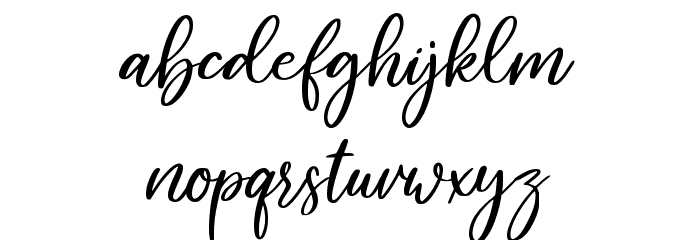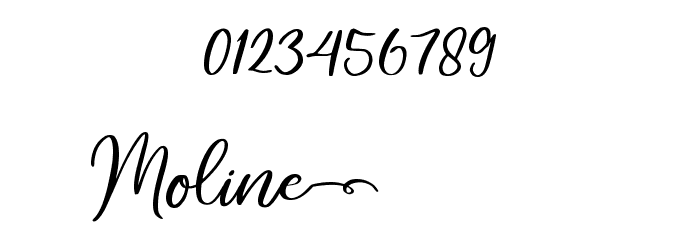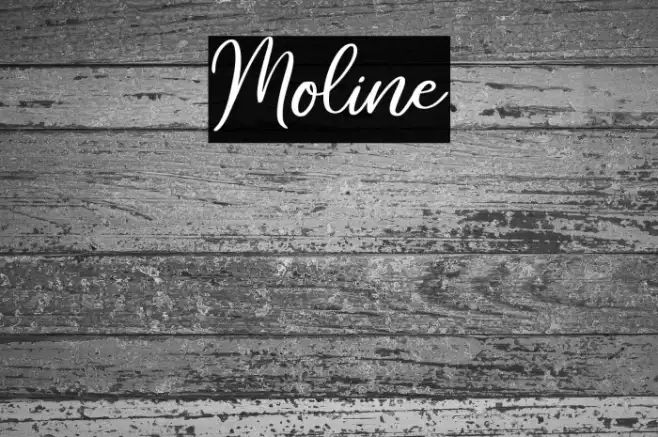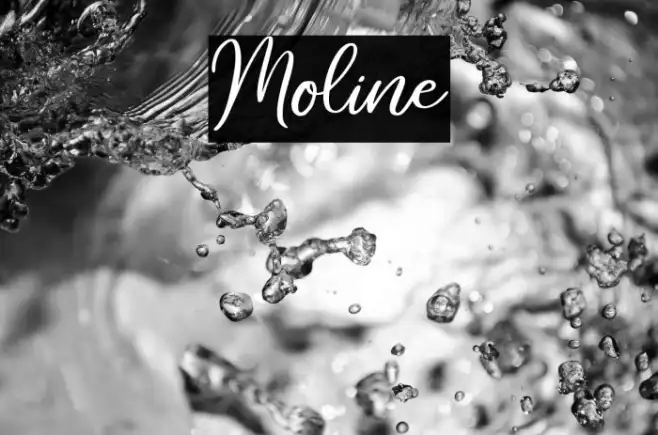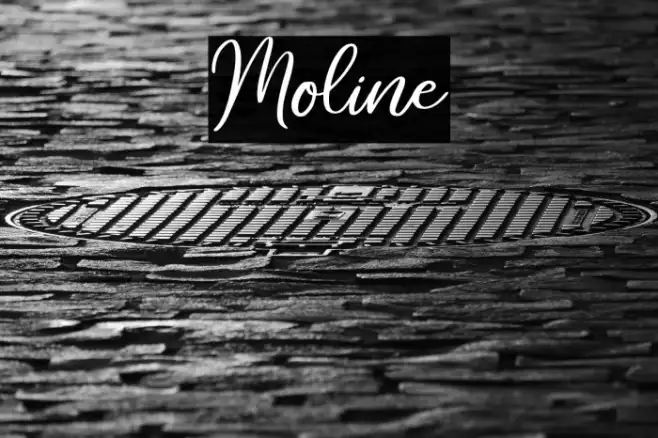
Moline Font
This elegant script font features flowing, cursive letterforms that exude sophistication and grace. The uppercase letters are characterized by their sweeping curves and loops, while the lowercase letters maintain a consistent fluidity, making them highly legible despite their decorative nature. The numerals are styled to match the overall script aesthetic, ensuring cohesion across all characters. The font's delicate strokes and moderate contrast between thick and thin lines contribute to its refined appearance, making it suitable for formal invitations, branding, and other projects that require a touch of elegance.
An elegant script font with flowing, cursive letterforms and moderate contrast.
- Proposed Projects: Ideal for wedding invitations, elegant branding, greeting cards, and luxury product packaging.
- Category: Script
- Overall Style: Elegant, Decorative
- Use Case: Invitations, Branding, Greeting cards